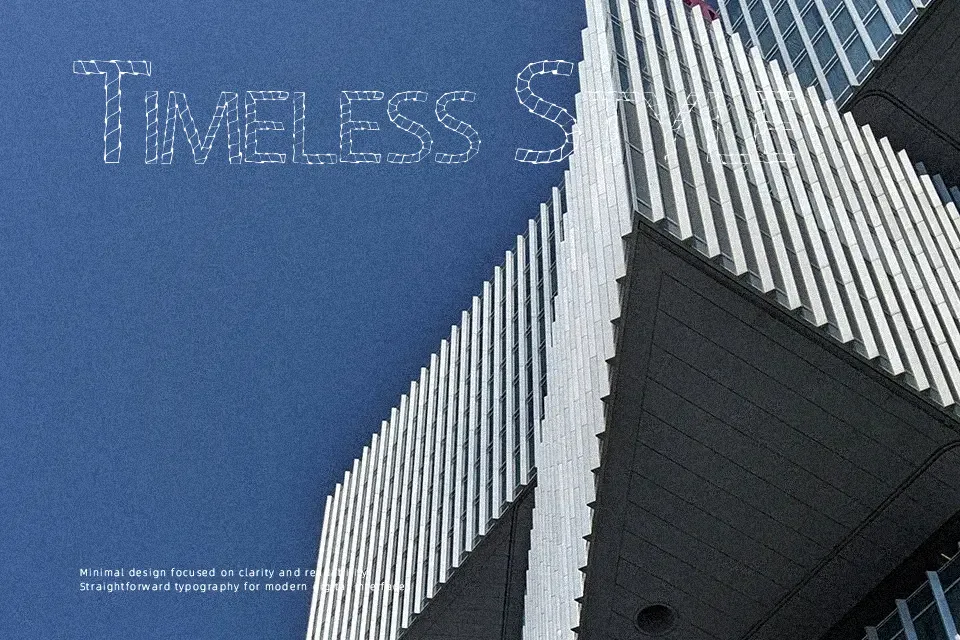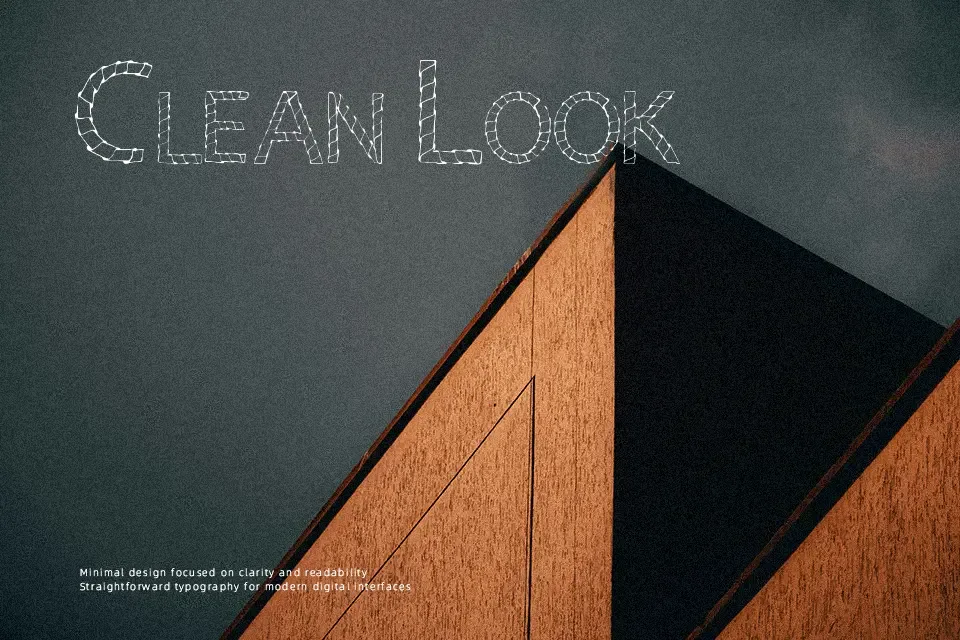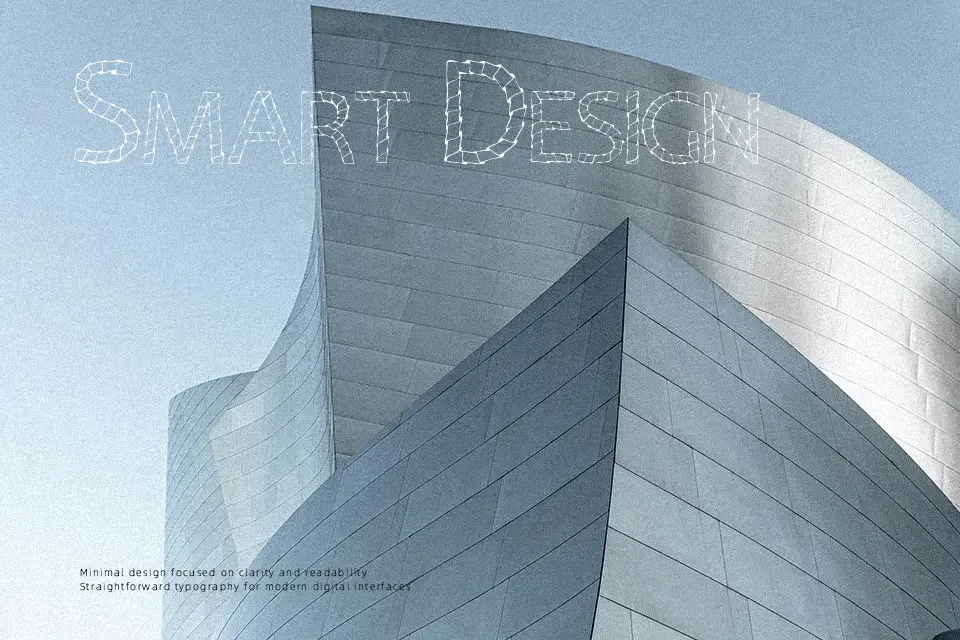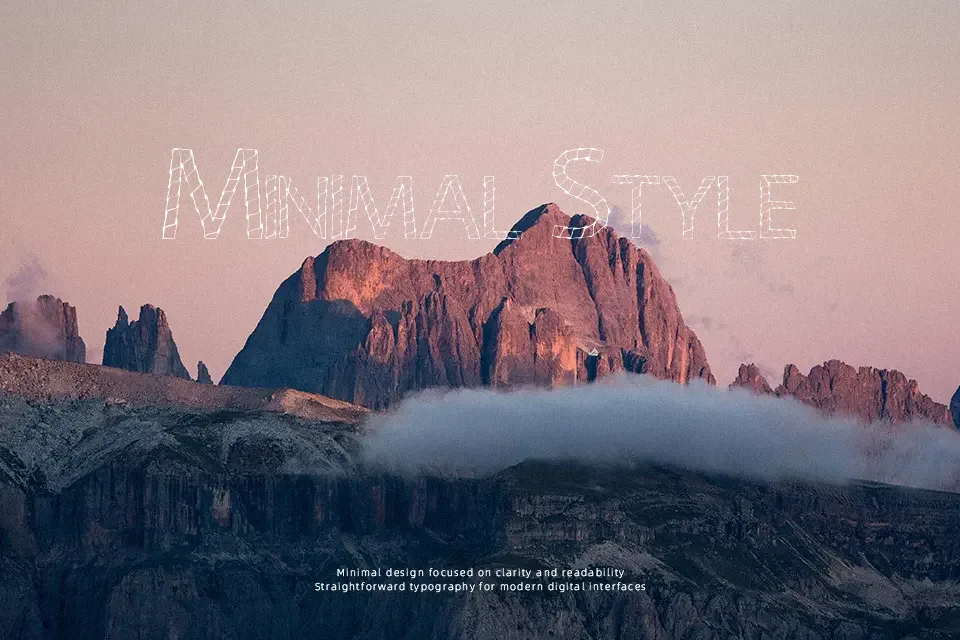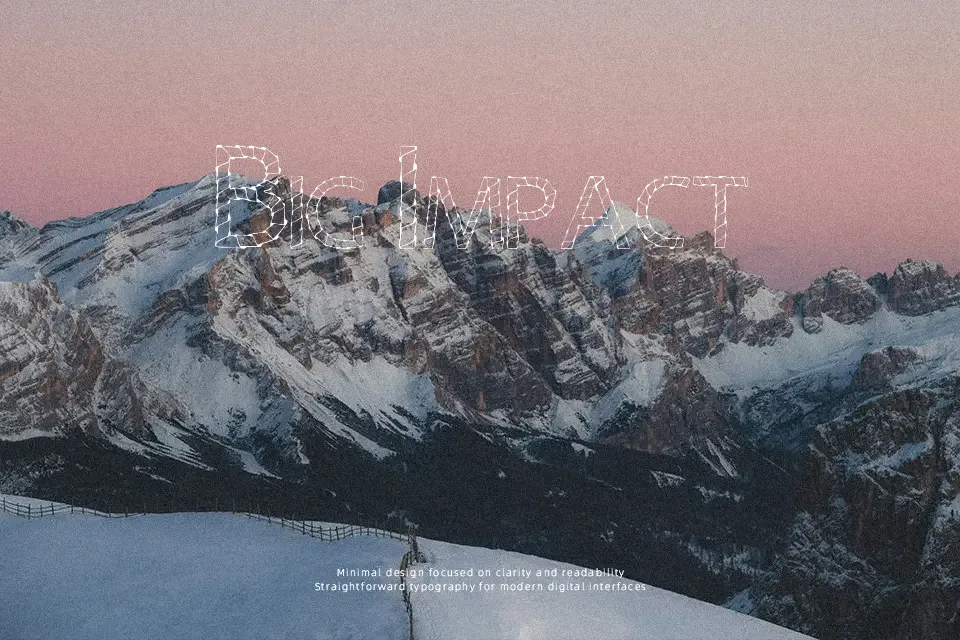
Papyrus EBO Font
Papyrus EBO Font uses narrow, decorative letterforms with uneven contours and a hand-drawn appearance. The strokes combine angular details with subtle irregularity, creating an expressive rhythm across uppercase characters. Spacing appears most effective in short lines, where the distinctive shapes have room to remain recognizable. The typeface works well for titles, themed graphics, and packaging that needs an ancient or fantasy-oriented tone. Its decorative construction gives headings a strong visual identity, but the detailed forms become harder to scan at smaller sizes. It is a practical choice when atmosphere matters more than sustained reading comfort.
Best For: fantasy game titles,film poster headlines,themed product packaging,book cover titles
Not Ideal For: long paragraph text,small interface labels,corporate reports,technical manuals
Perfect for film, gaming, and headline, with a ancient and decorative style.